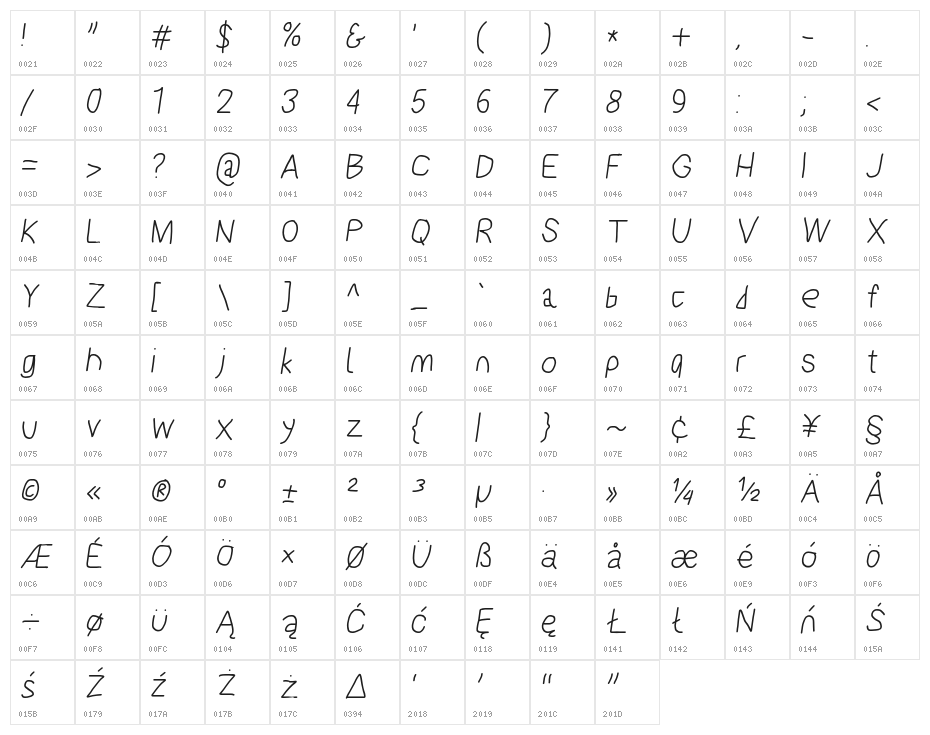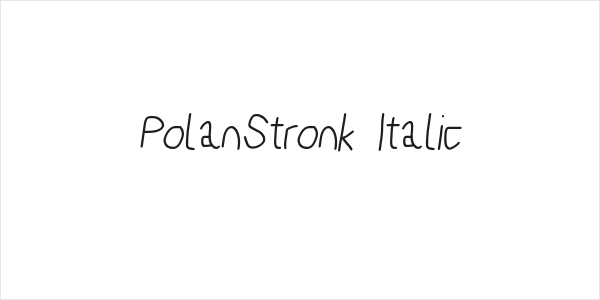
PolanStronk Italic Font
PolanStronk Italic Description
This font features a playful and informal handwritten style, characterized by its slightly slanted and casual appearance. The letters are crafted with a consistent stroke width, giving it a uniform look while maintaining a sense of spontaneity. The uppercase and lowercase letters are well-balanced, with a slight tilt that adds to its dynamic feel. The numerals and special characters are designed to match the overall aesthetic, making it versatile for various uses. Its unique charm makes it suitable for projects that require a personal touch or a creative flair.
| Proposed Projects | Ideal for greeting cards, personal blogs, children's books, and creative branding. |